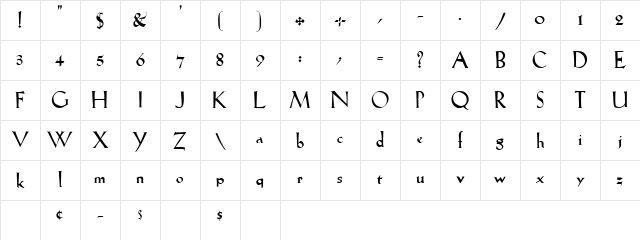
LilHvy Regular
LilHvy Family
Design Context for LilHvy
LilHvy is a composed and adaptable typeface that performs quietly and consistently across a wide range of design contexts.